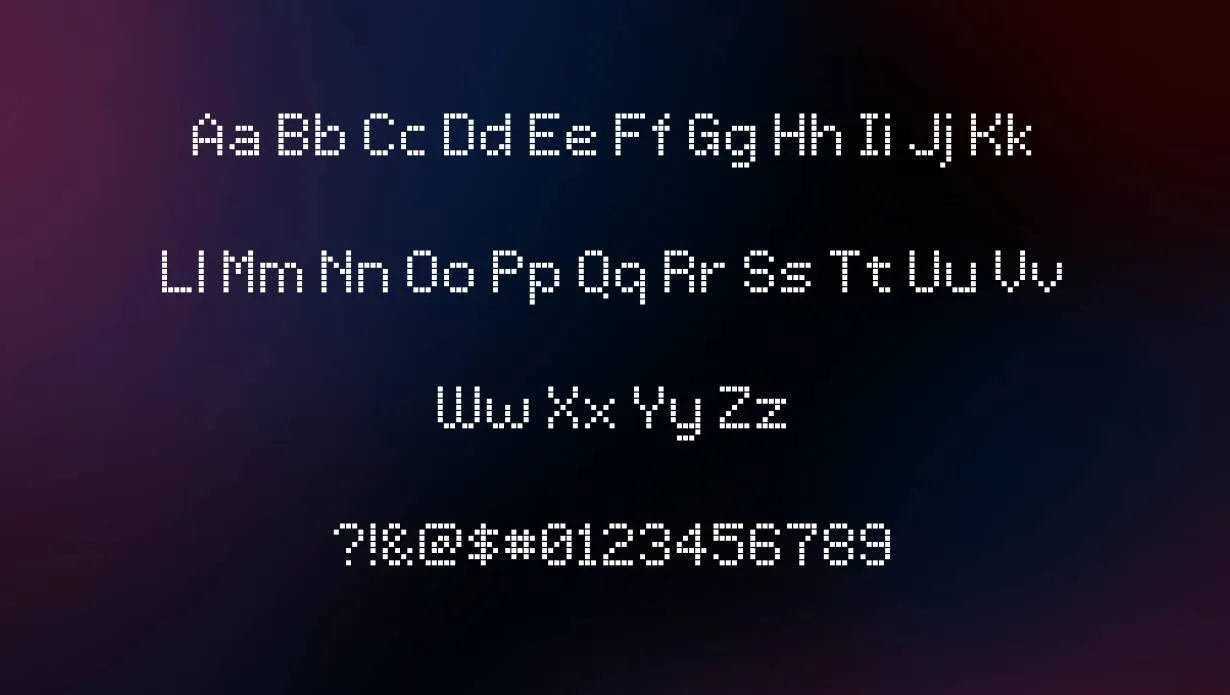
The LCD Dot Font is a digital and futuristic choice, reminiscent of retro displays. Its pixelated characters bring a tech-savvy vibe to graphics in Adobe Photoshop, add a futuristic touch to web design with CSS, or infuse a digital aesthetic into documents in MS Word.
LCD Dot Font
This font effortlessly channels a sense of technology and modernity, making it perfect for designs that embrace the digital age.